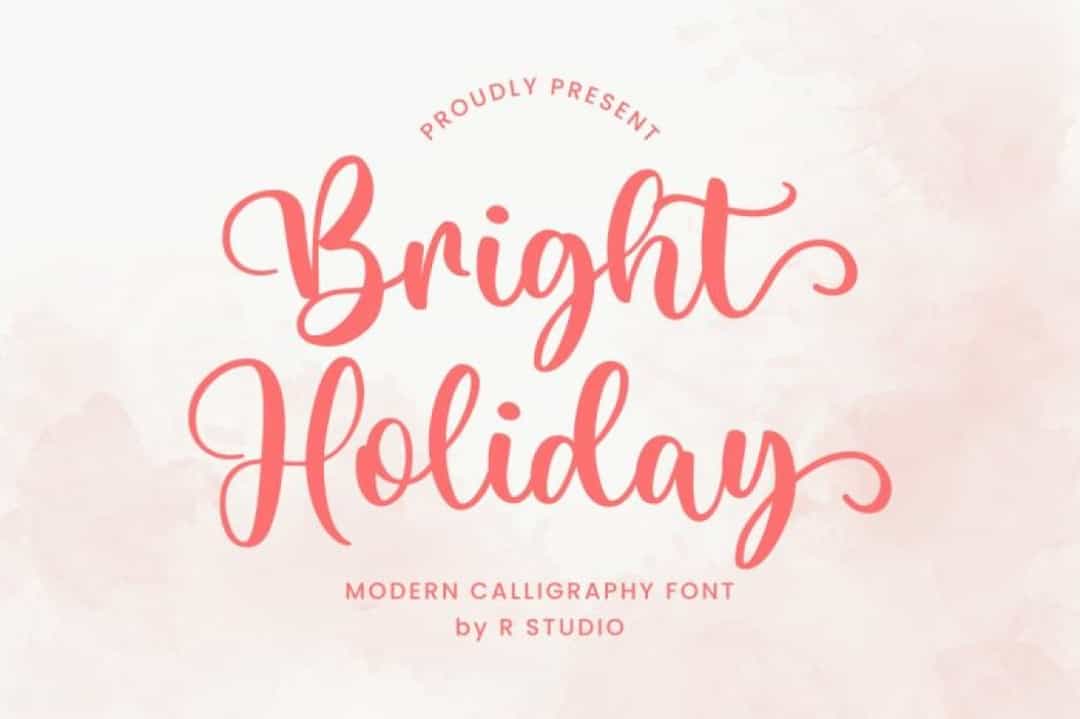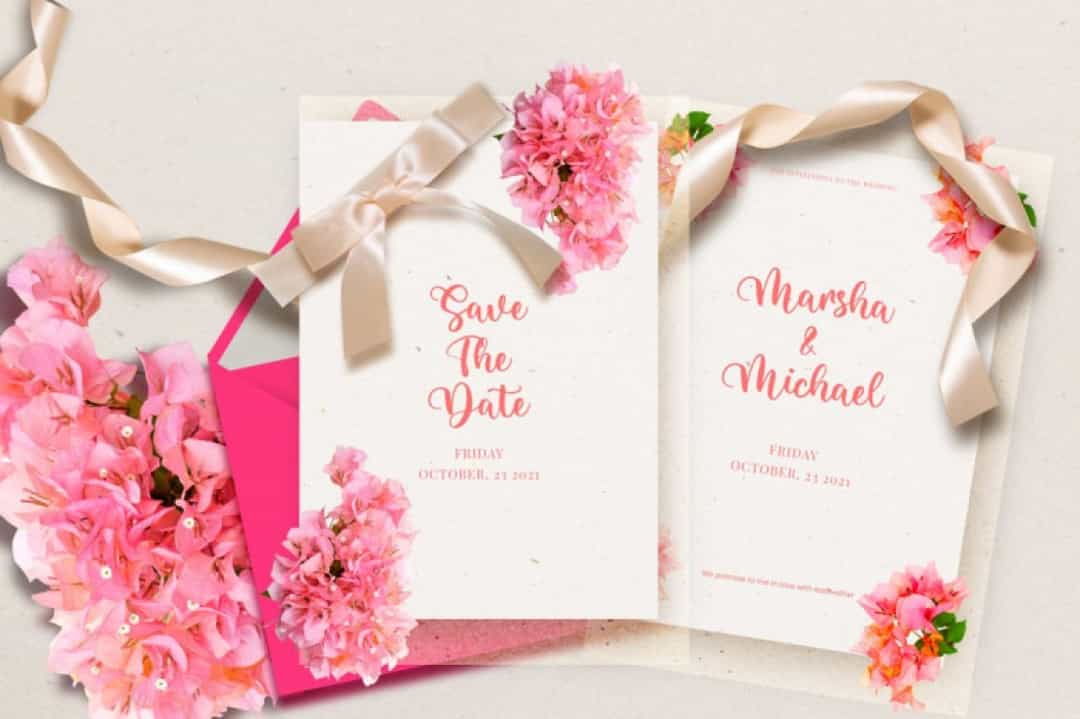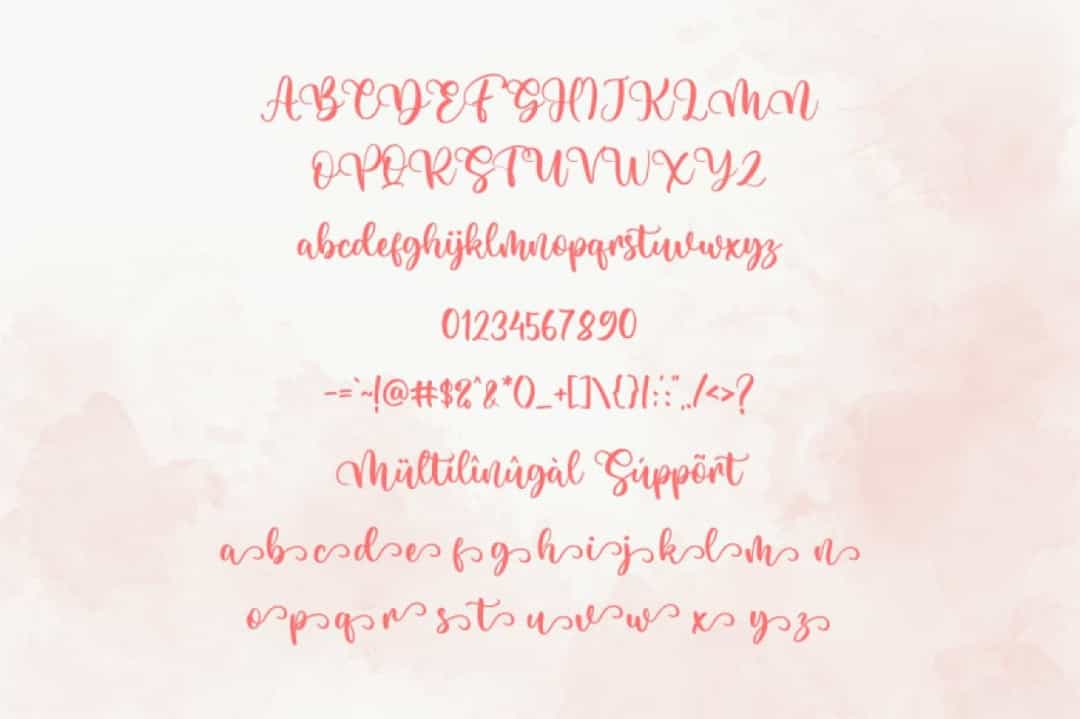
This font is a modern calligraphy style as well as handwritten font that is perfect for designing bright holidays. PUA encoded you’ll be able to choose any swashes and glyphs as easy as pie! Also, it has various baselines with some clean lines, good glyphs and even better alternative glyphs.